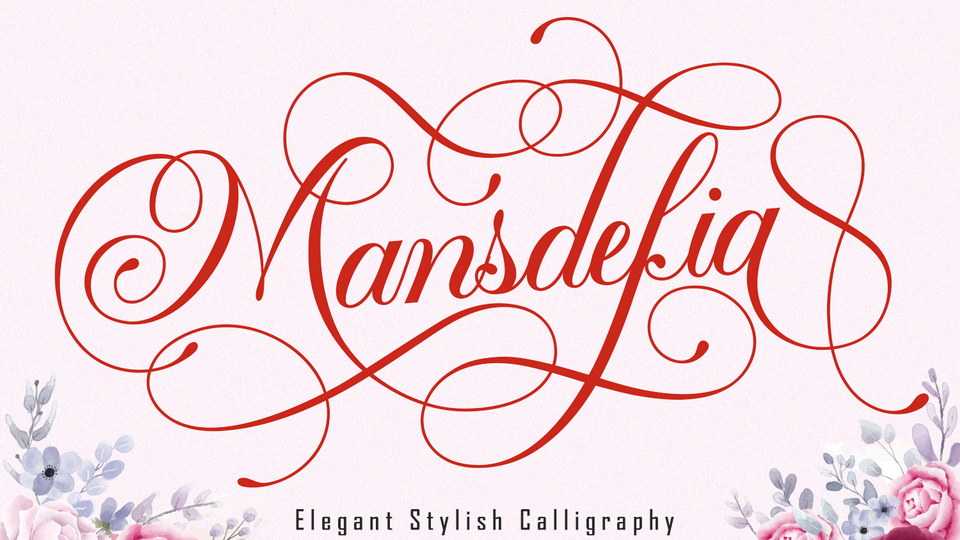
Download Mansdefia font, a sweet script typeface with a classic style and a touch of elegance, inspired by the handwriting of Italian women and ancient manuscripts.
Designer: Sealoung